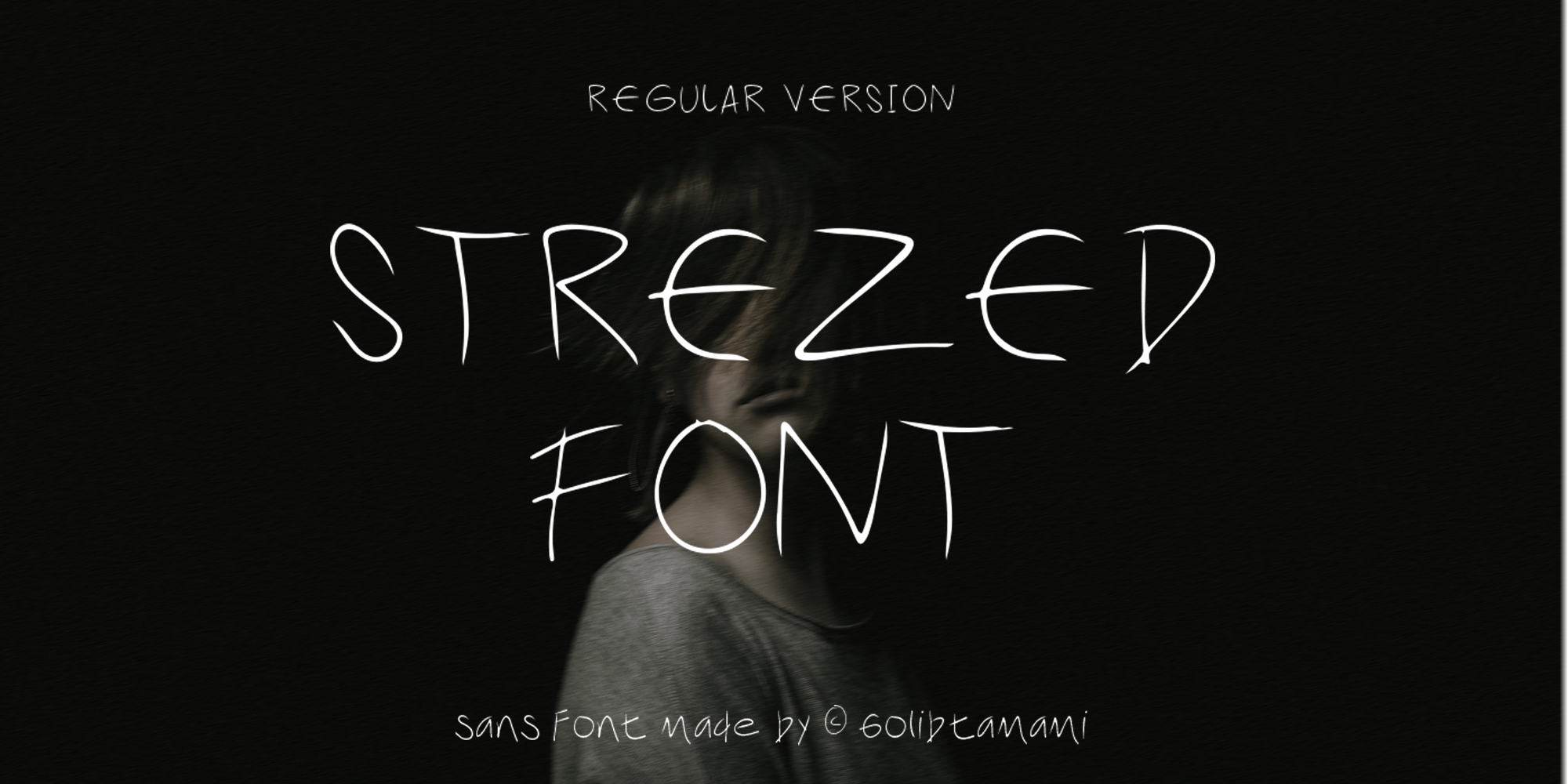
Usage Examples: Strezzed Font is ideal for horror-themed posters, edgy titles, grunge-style branding, and dark social media graphics.
Why It’s Exciting: Its raw, handwritten style with a distressed, chaotic vibe adds a powerful, emotional edge to designs evoking pain or intensity.
Font Families: Strezzed Font includes Regular and Bold variants, offering flexibility for impactful, thematic design projects.
Capture attention with Strezzed Font Free Download! Designed by Gholib Tammami, this handwritten typeface brings a gritty, unsettling aesthetic, perfect for horror movie posters, brutalist designs, or projects conveying sadness and fatigue. Its uneven, expressive strokes make it a standout for bold, thematic visuals. Download Strezzed Font Free Download now to test its intense style, but secure a commercial license for professional use. With Regular and Bold variants, this font adapts to various creative needs, ensuring striking visuals with emotional depth. Elevate your brand’s presence with this raw, evocative typeface today